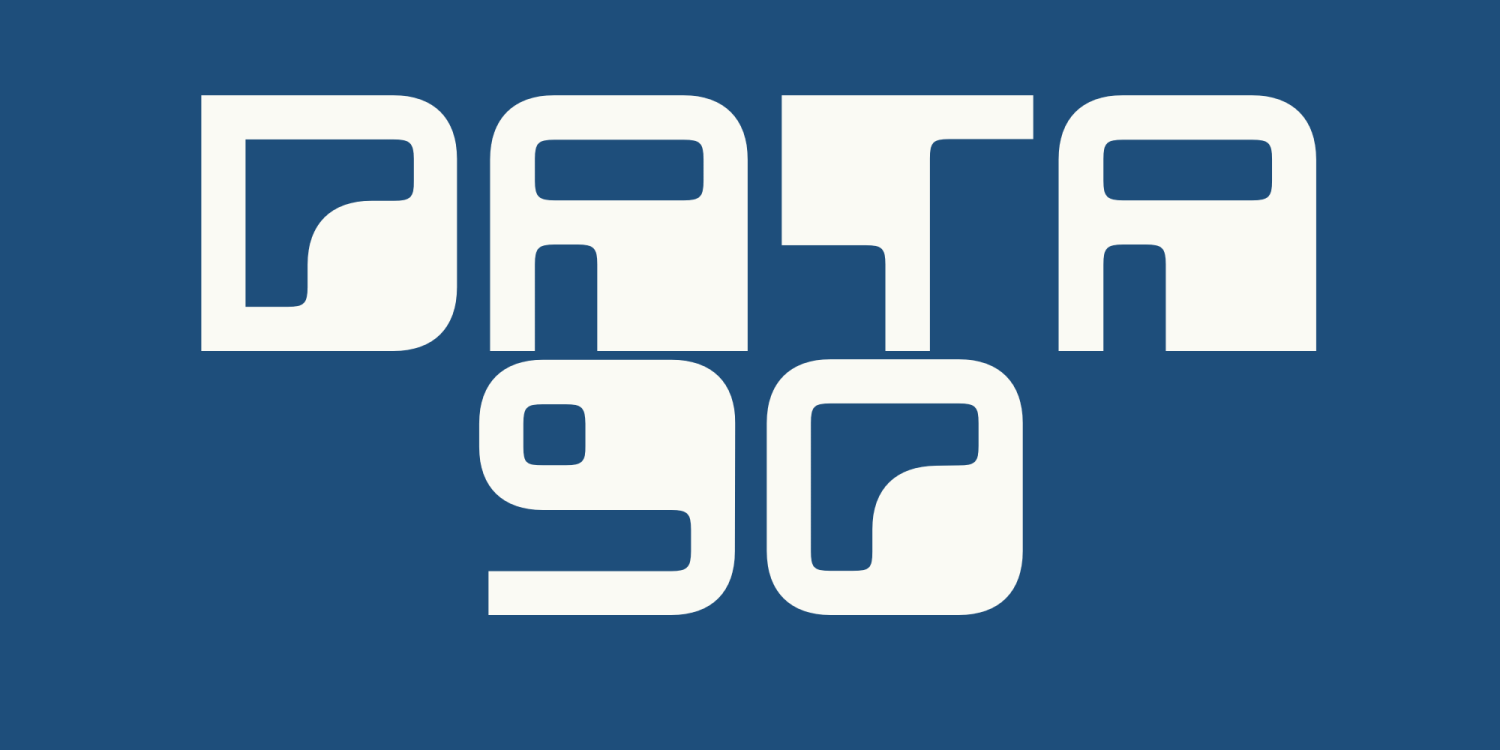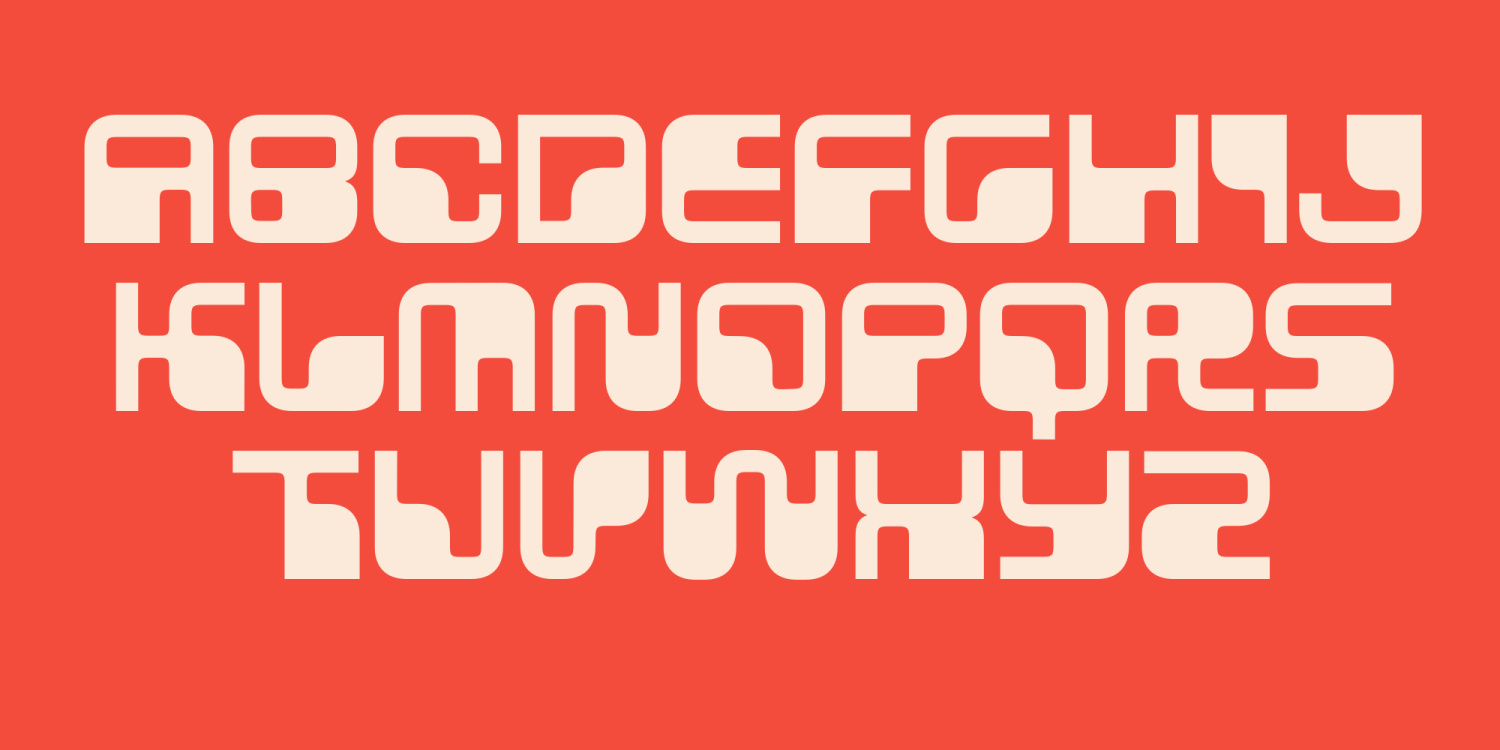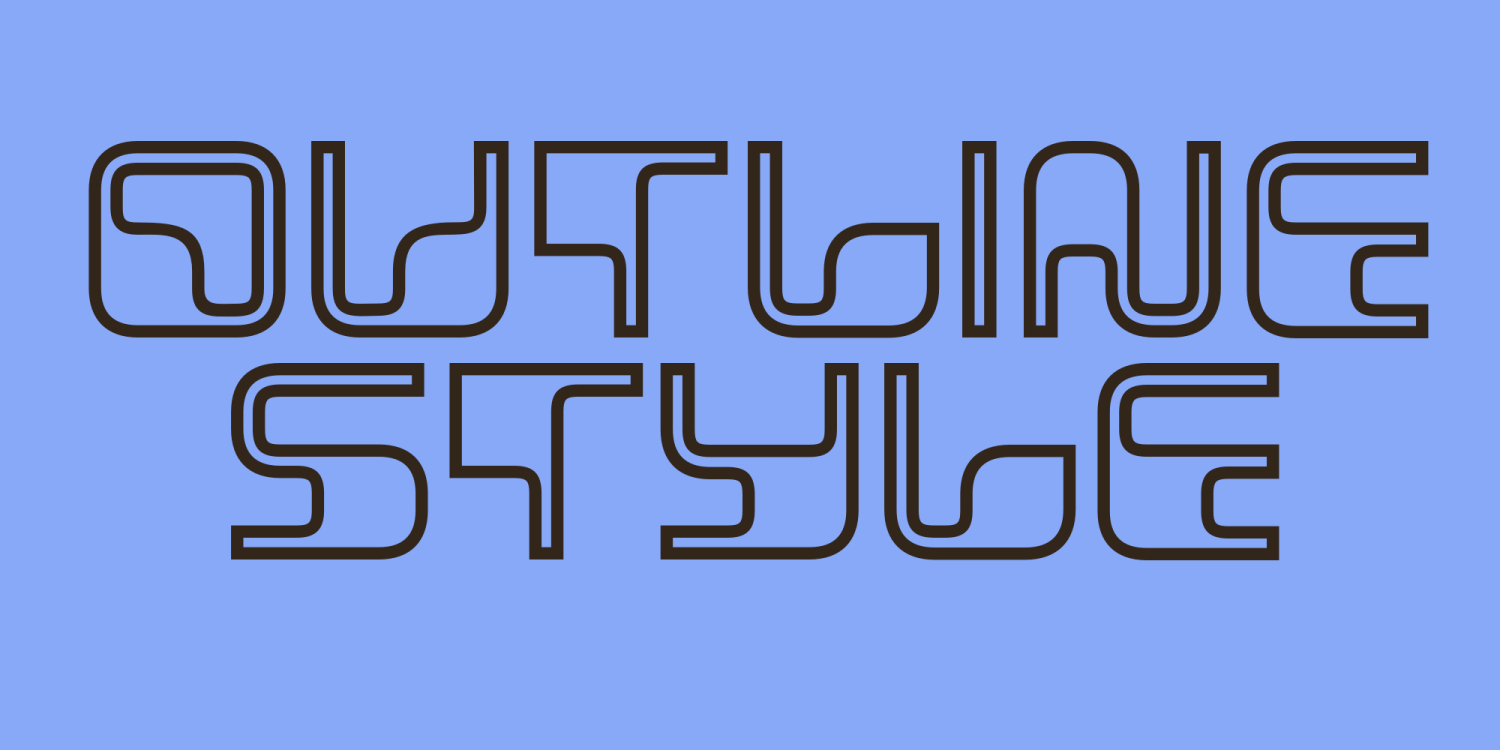
Data 90
About Data 90
Data 90 sets the mind wandering. OCR, the ?60s, early mainframes the size of your living room; just the stuff we like to geek out on. Plus, it's exactly what you would expect a font named Data 90 to look like!